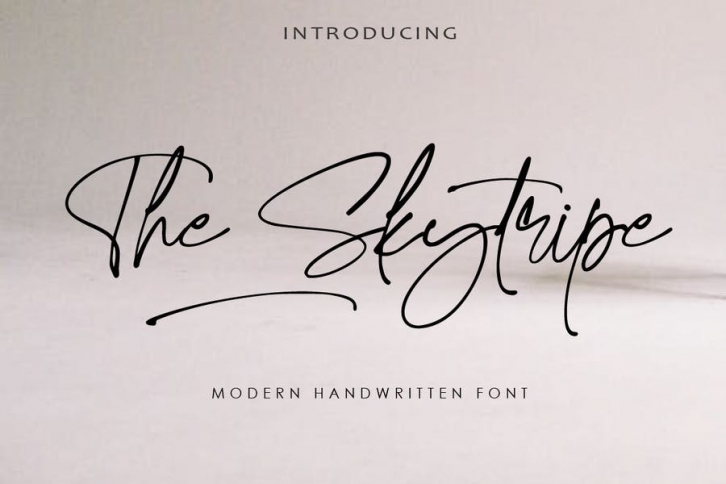
AM The Skytripe - Modern Handwritten FONT Download
AM The Skytripe - Modern Handwritten Font Download
The Skytripe font is modern and elegant handwritten with a quick stroke pen effect. This font creates a natural look that is perfect for projects needing a handwritten taste. This script comes to life as if you were writing it yourself!
This font is great for your creative projects such as watermark on photography, and perfect for logos & branding, photography, invitation, watermark, advertisements, product designs, stationery, wedding designs,label, product packaging, social media, movie titles, books titles and more.